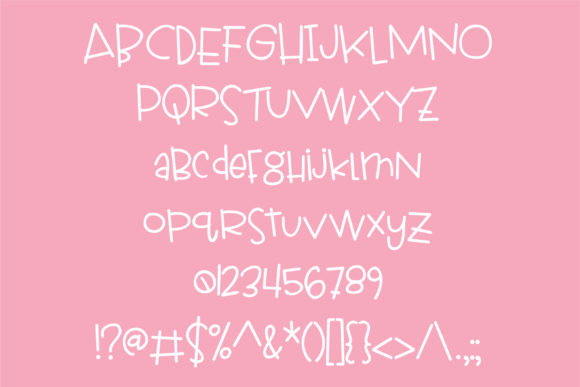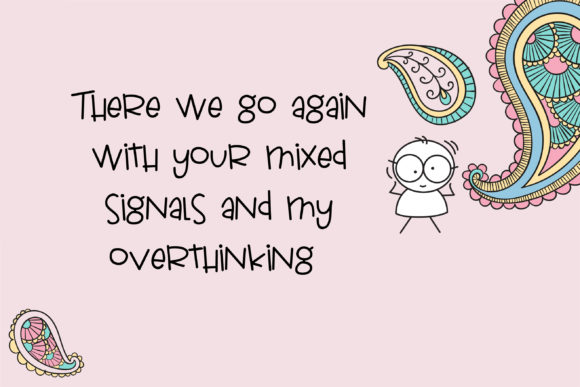
Paisley Font
db-ku.com - Script & Handwritten -- Paisley is a fun and neat handwritten font. Clean and a little bit quirky, this font is the perfect fit for all of your logos, branding, social media, and crafty DIY projects.